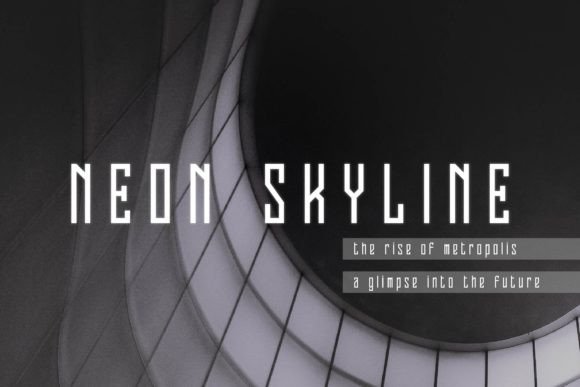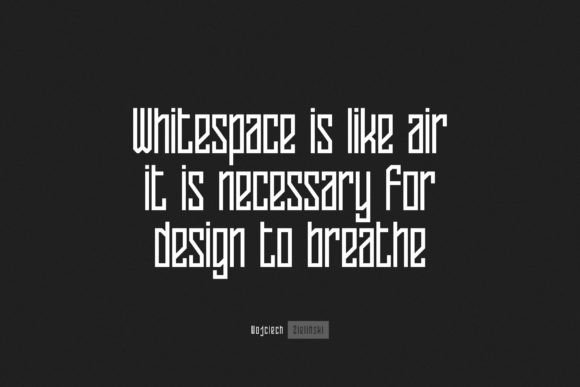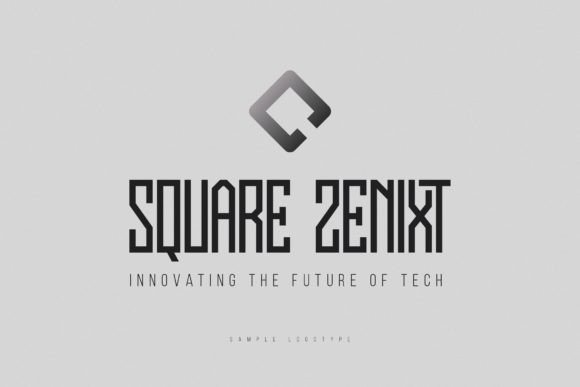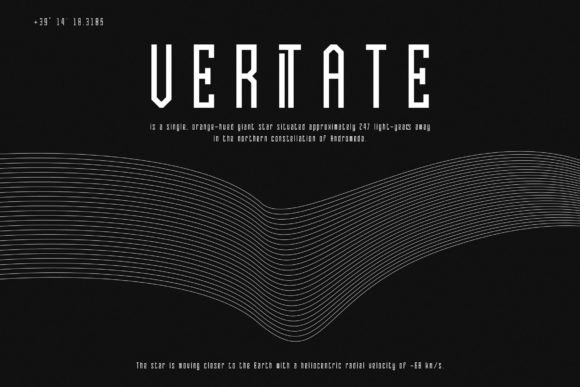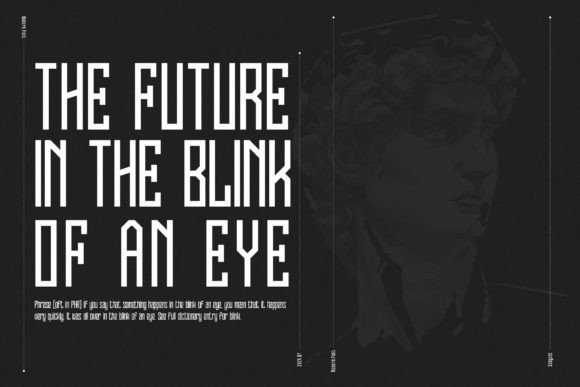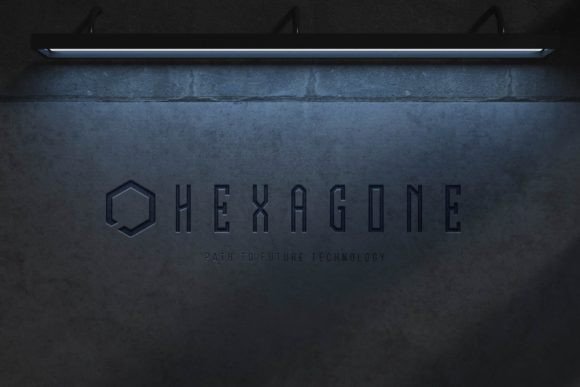
Introduction to Saeyors Font
Have you ever been scrolling through your social media feed and stumbled upon a stunning design that makes you wish you could recreate it in a snap? For designers, moments like these can be a constant source of inspiration, driving us to explore new design resources and techniques. One such resource that’s been making waves in the design community is the Saeyors Font – a modern futuristic sans-serif typeface that’s perfect for any creative project.
Whether you’re working on a high-quality logo design, a branding project, or even a simple quote for a mug, the Saeyors Font is an excellent choice. Its sleek and modern aesthetic lends itself perfectly to a wide range of design applications, from homeware designs and product packaging to photography and special events. What’s more, this design resource is available for free download, complete with a transparent background, making it an invaluable asset for any designer looking to elevate their creative projects.
Key Features of Saeyors Font
- Unique and stylish typography with a transparent background
- High-resolution design, suitable for print and digital media
- Designed to be versatile and easy to use in various design contexts
Honest Review: Saeyors Font
As a designer, I’m always on the lookout for high-quality fonts to enhance my creative projects. Saeyors Font is one such resource that caught my attention.
I was impressed with the versatility of Saeyors Font, which can be used in various design contexts. From headings to body text, this font is a great addition to any design arsenal.
Here are some features that work well: ✨
- High-quality font design with smooth lines and curves
- Transparent background, making it easy to overlay on images
However, there are some limitations to consider: ⚠️
- Not as extensive a font family as some other options
- May not be suitable for very small text sizes
Overall, I’m impressed with Saeyors Font and would recommend it for designers looking for a reliable, high-quality font for their creative projects.
Tips for Getting the Most Out of Saeyors Font
To get the most out of Saeyors Font, use it in combination with other design elements, such as images and graphics, to create a unique and eye-catching design. You can also experiment with different font sizes, colors, and styles to create a distinctive look.
Saeyors Font is commonly used in creative projects, such as logos, business cards, and brochures. It’s also used in digital designs, such as websites and social media graphics